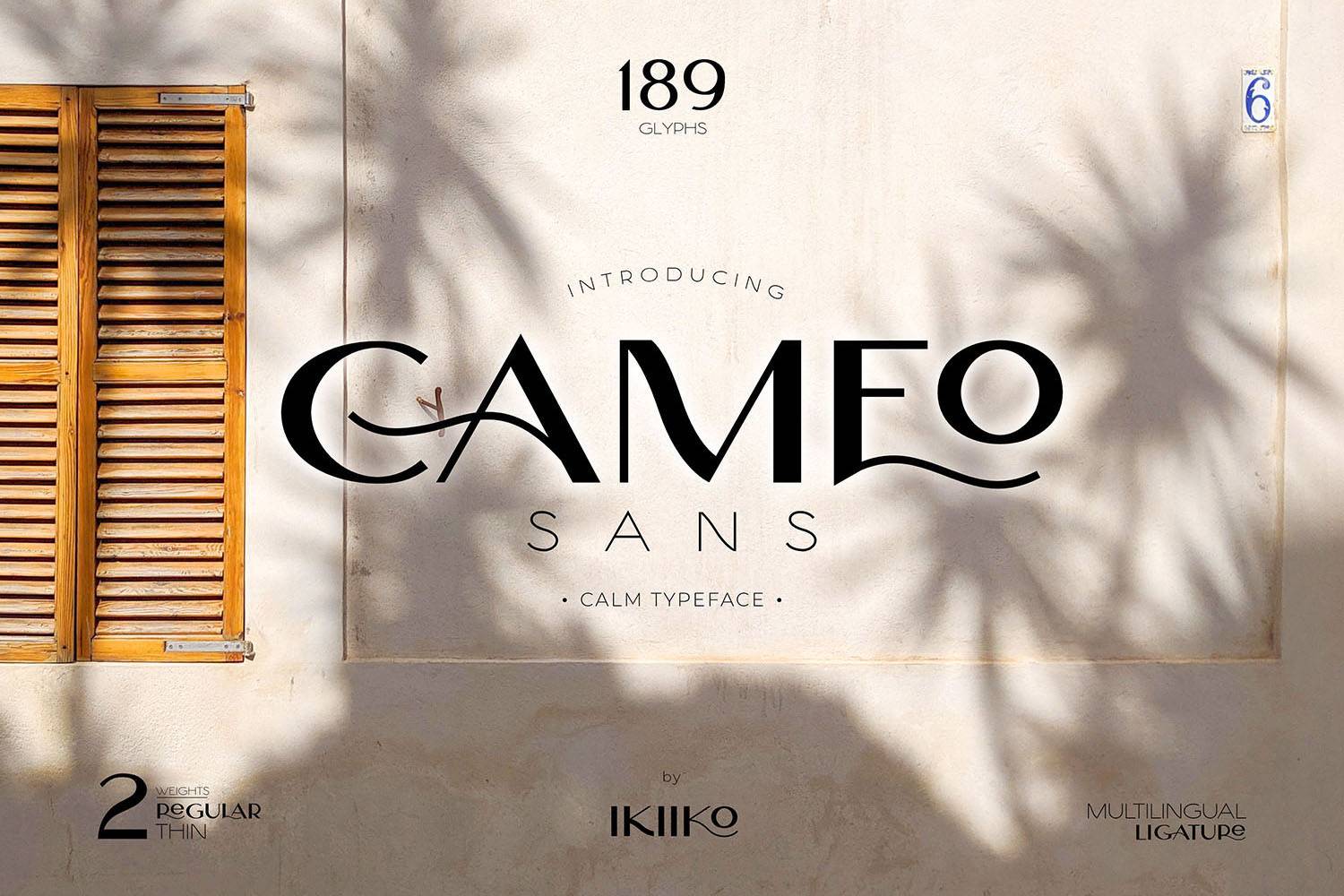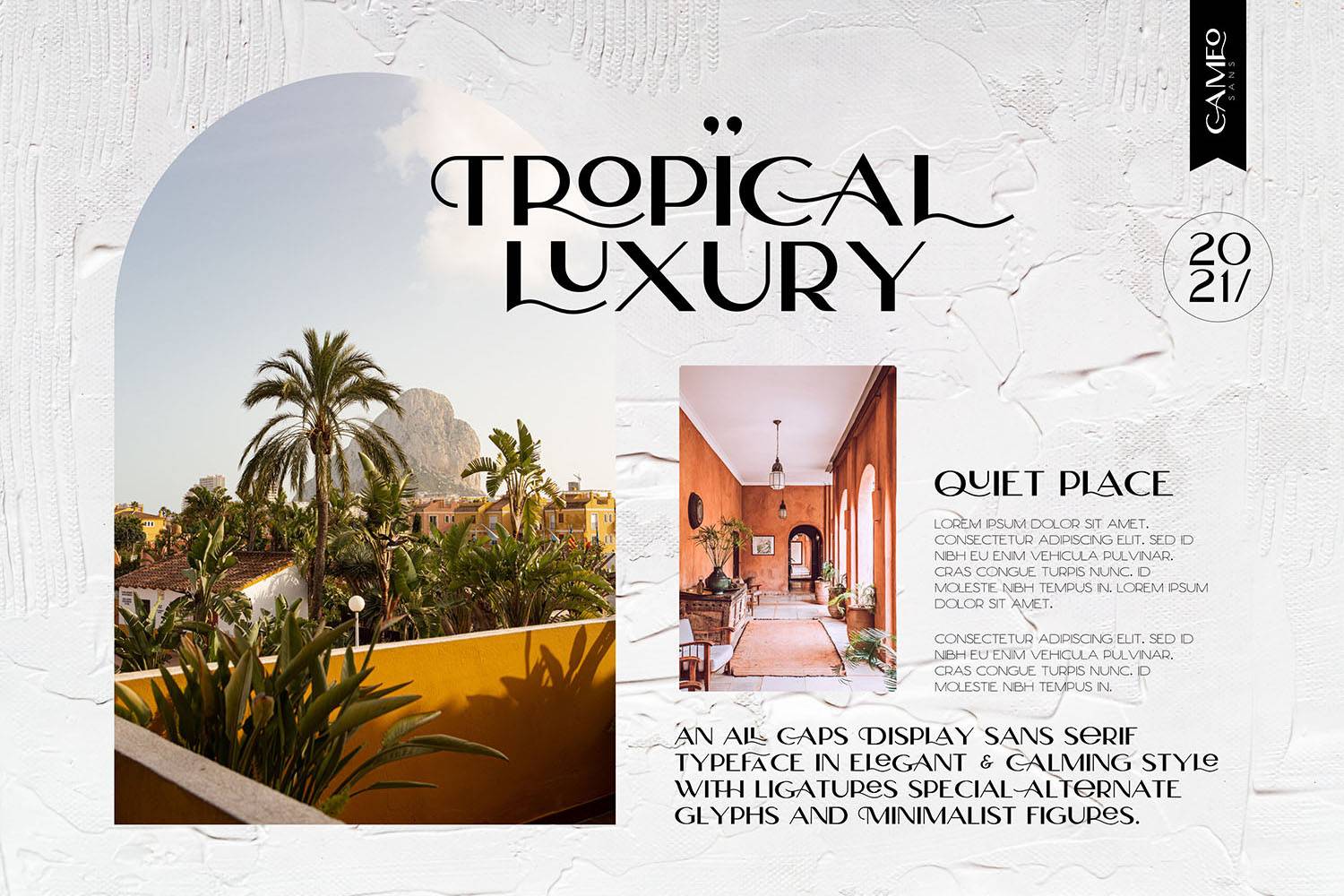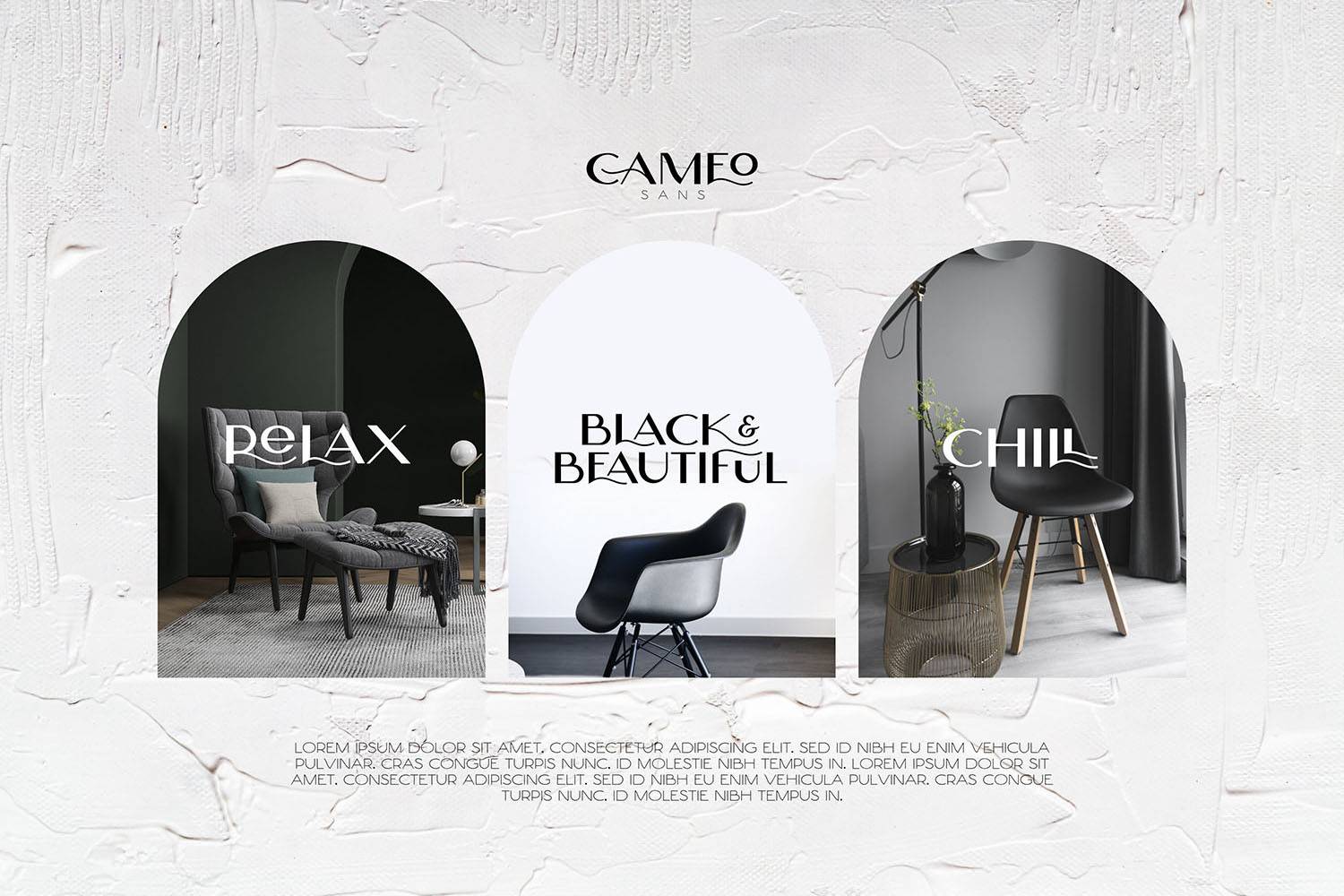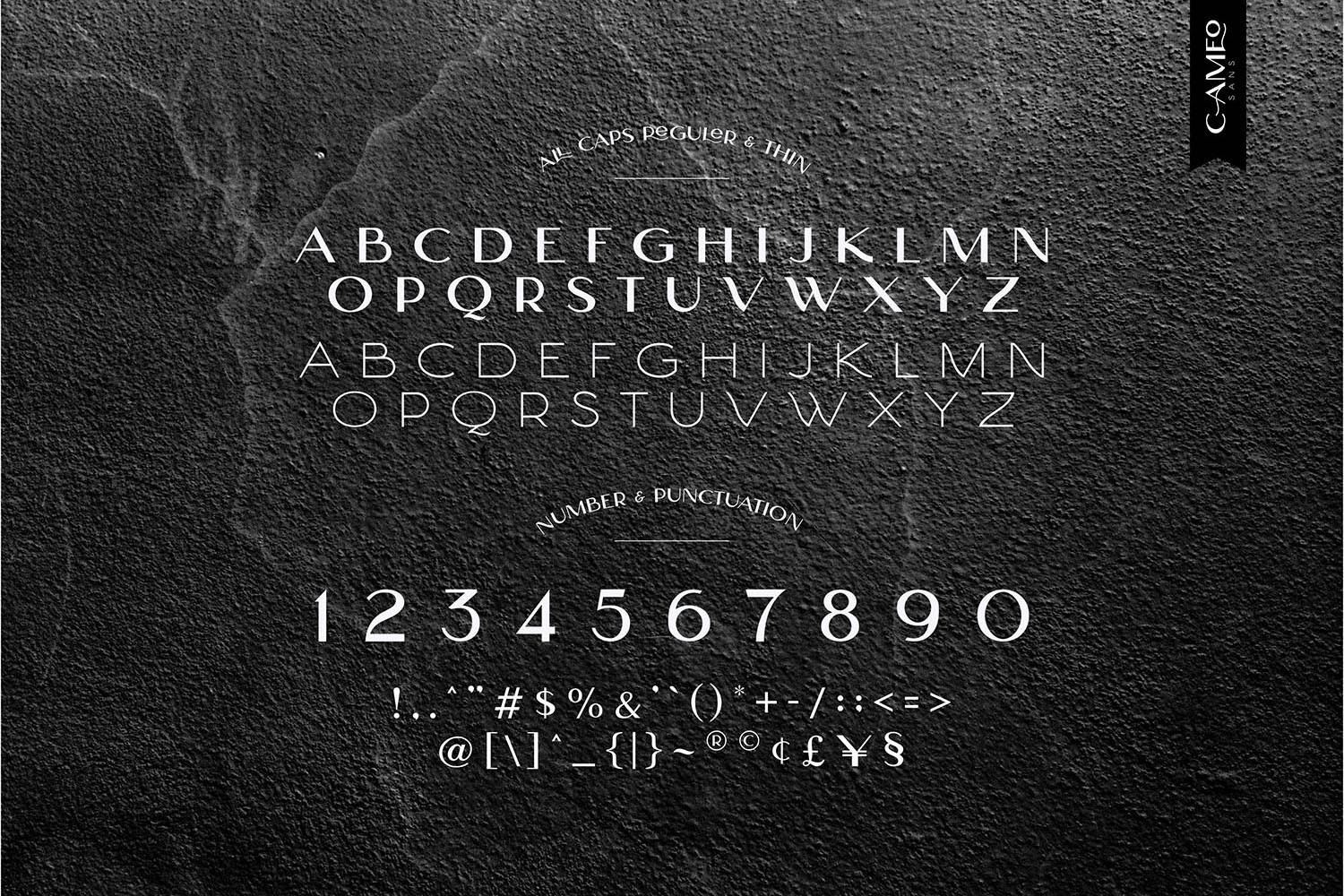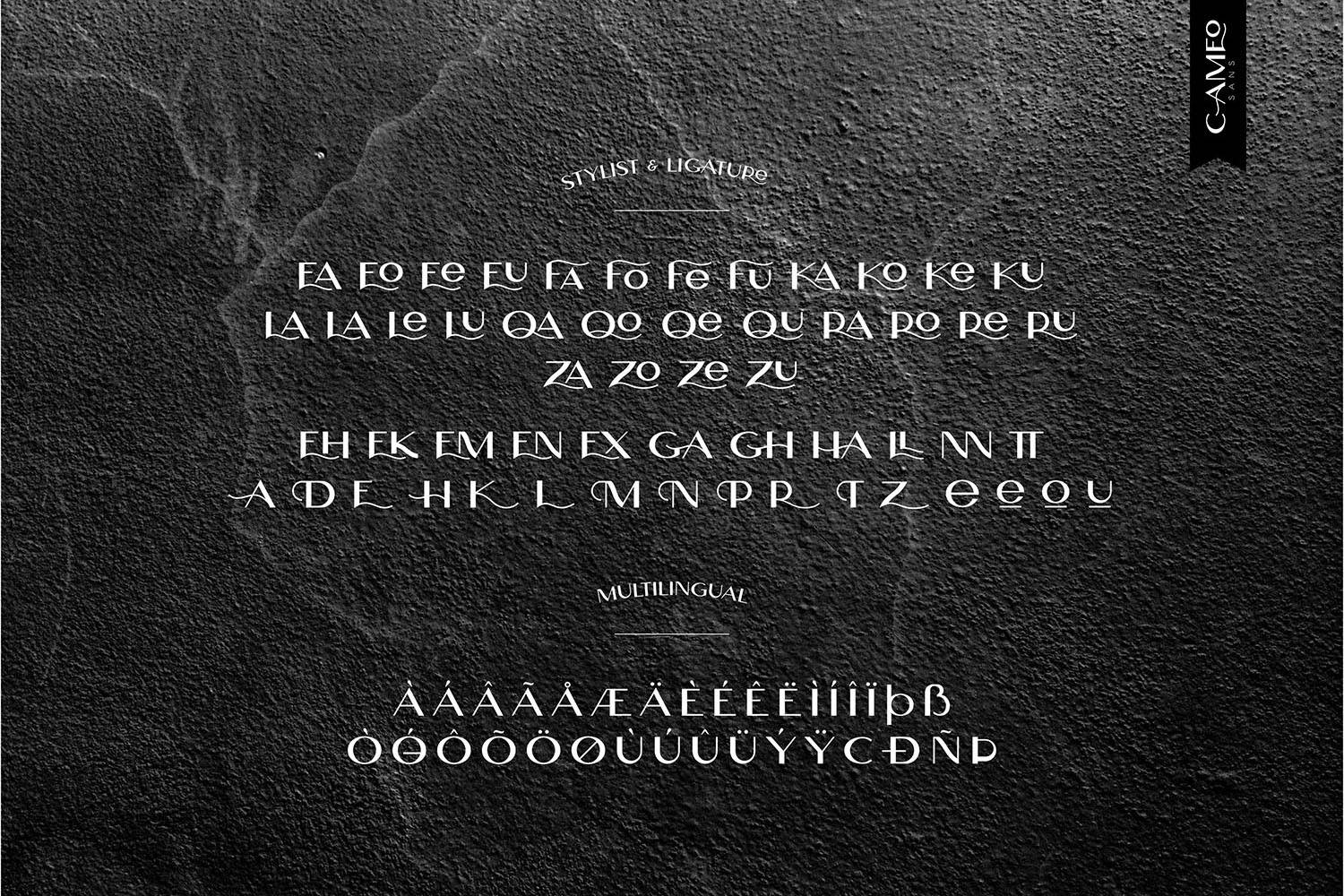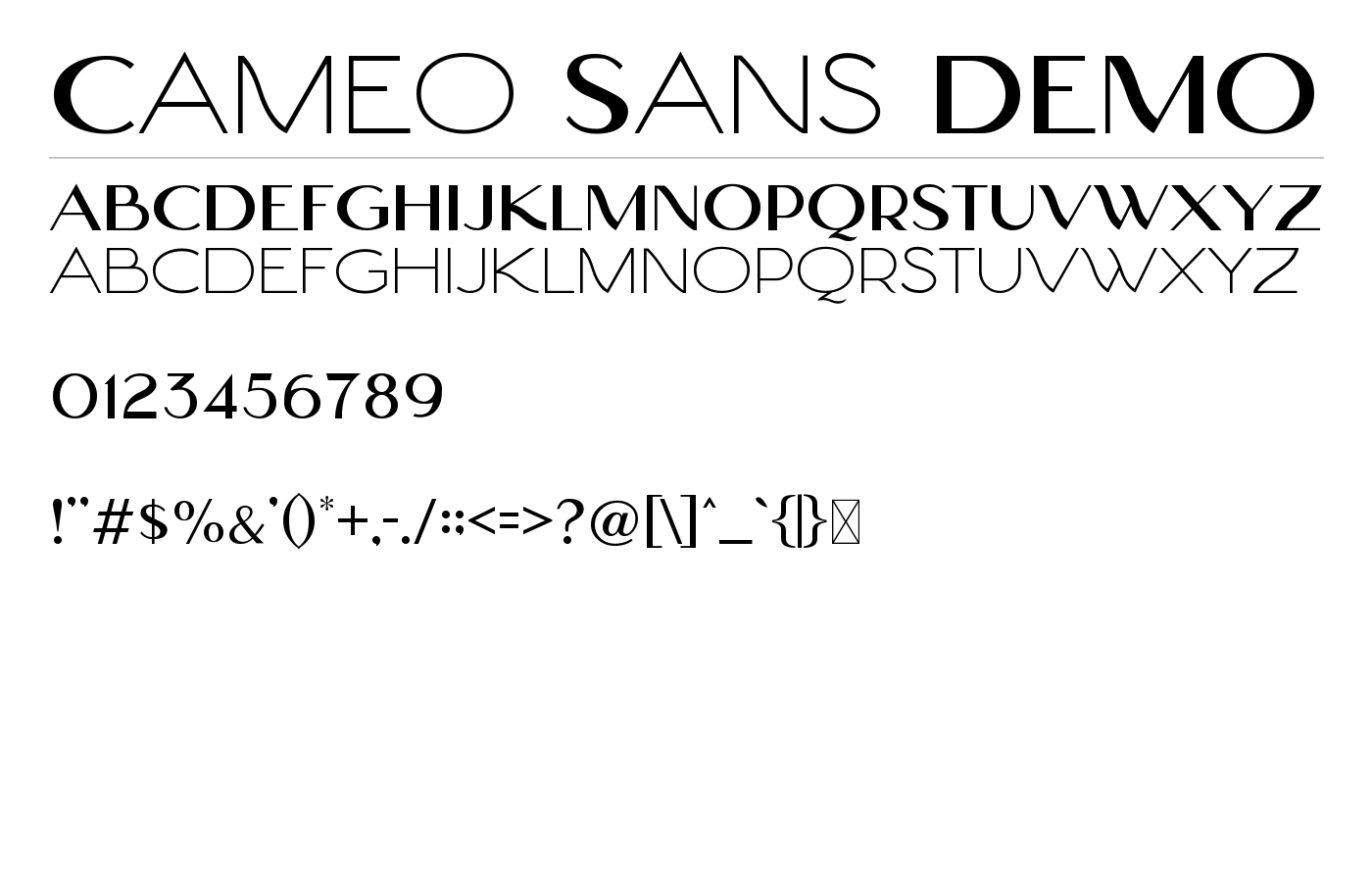
Cameo Sans is a sleek, modern sans serif font with a high contrast between thick and thin strokes, giving it an elegant and sophisticated feel. Its slender letterforms and delicate details make it ideal for luxury branding, fashion editorials, and stylish headlines where a refined and contemporary look is desired.
Cameo Sans Font
About Cameo Sans Font
| Font family | Cameo Sans Font |
| Designer | ikiiko |